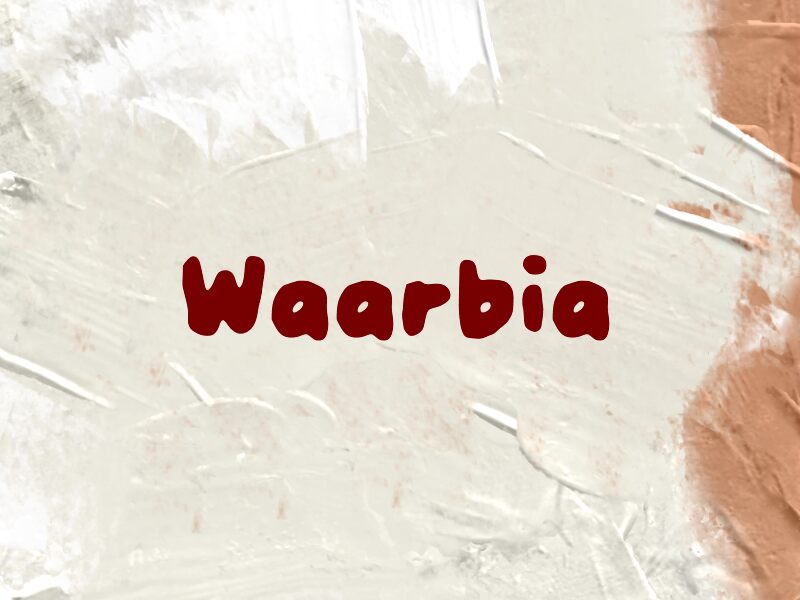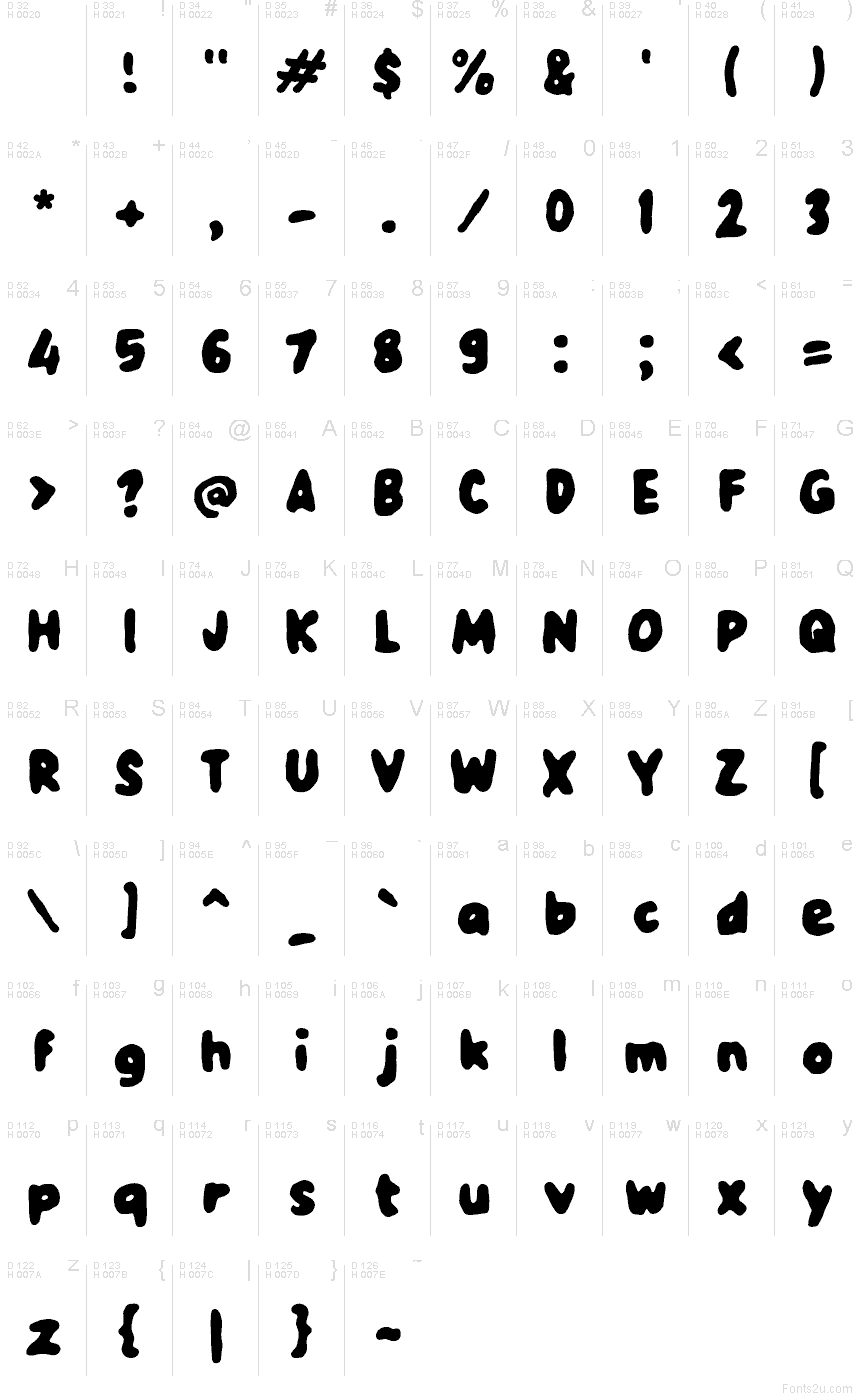
Waarbia
Waarbia font by wepfont.com is a free cartoon display typeface with thick, squishy letters that look like they’re made of inky bubble gum. The rounded, uneven shapes feel hand-drawn and a little mischievous, giving titles a gooey, bouncy energy that jumps off the page or screen without feeling chaotic. Its chunky forms stay readable even at large sizes, making it easy to grab attention fast.
Using Waarbia, this free font shines on kids’ book covers, birthday invitations, slime-themed posters, playful logos, YouTube thumbnails, stickers, and casual game titles. The consistent blob-like rhythm keeps text feeling fun and unified, even with short, punchy words. Pair it with a simple geometric sans in small body text, and let Waarbia handle the loud, sugary headlines.